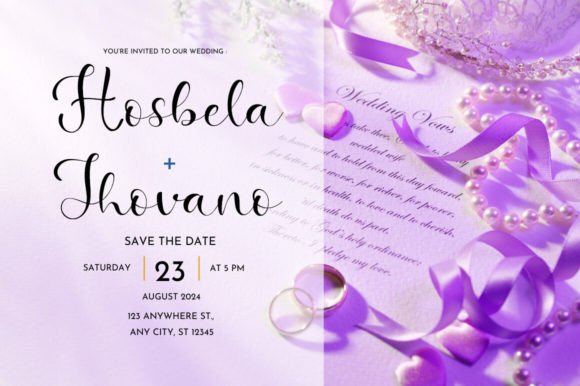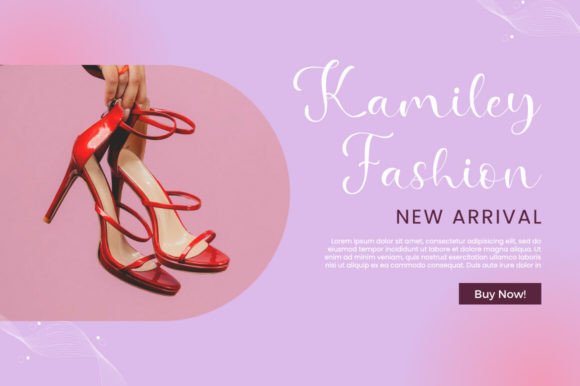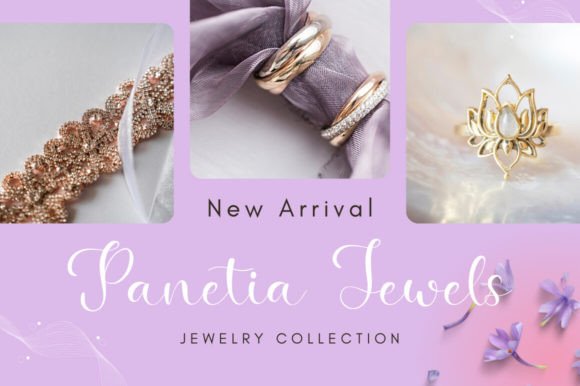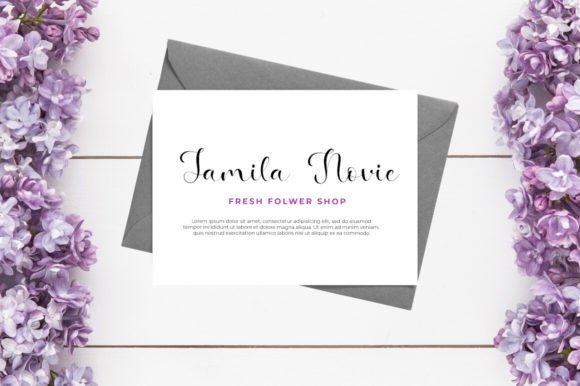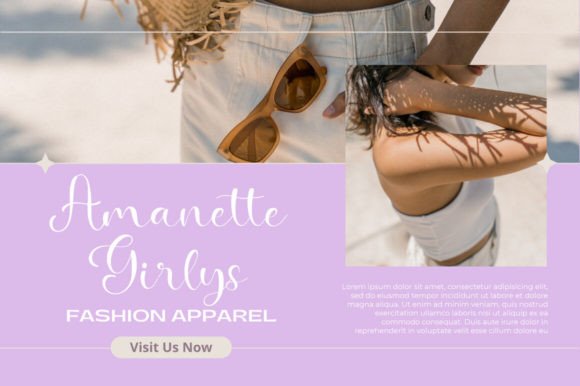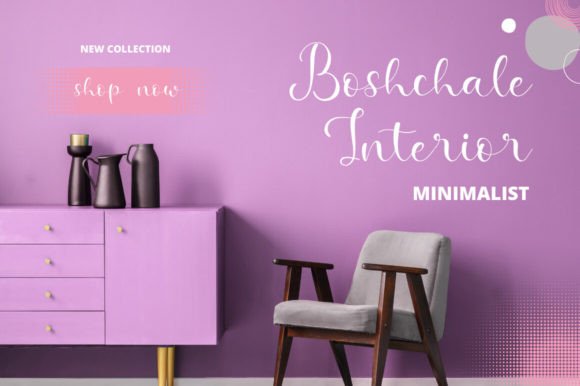
Introducing Bilateny Script: Elevate Your Designs with Elegance and Sophistication
In the world of design, typography plays a crucial role in conveying the message and aesthetic of a project. For those seeking a font that embodies elegance, class, and modernity, Bilateny Script is an exceptional choice. This stylish font is designed to add a personal touch to your art projects, making them stand out with its unique and sophisticated look.
What is Bilateny Script?
Bilateny Script is a beautiful script font that offers gorgeous typography, perfect for a wide range of projects. Its elegant and classy appearance makes it an ideal choice for designers and crafters looking to add a touch of sophistication to their work. Whether you’re creating logos, branding materials, invitations, stationery, wedding designs, social media posts, advertisements, product packaging, or labels, Bilateny Script is the perfect fit.
Key Features of Bilateny Script
• Elegant and Classy Look: Bilateny Script boasts a modern and sophisticated design that will elevate your projects to the next level.
• Versatile: This font is perfect for various projects, including logos, branding, invitations, stationery, wedding designs, social media posts, and more.
• Handwriting Taste: Bilateny Script offers a unique handwriting taste that will add a personal touch to your designs.
• Easy to Read: Despite its elegant look, Bilateny Script is easy to read, making it perfect for body text and headings.
Usage Ideas for Bilateny Script
Bilateny Script is a versatile font that can be used in a variety of projects, including:
• Logos and Branding: Create a lasting impression with a unique and elegant logo that reflects your brand’s personality.
• Invitations and Stationery: Add a touch of sophistication to your invitations, greeting cards, and stationery.
• Wedding Designs: Make your wedding designs, such as wedding invitations, programs, and place cards, truly special with Bilateny Script.
• Social Media Posts: Elevate your social media posts with a font that is both elegant and easy to read.
• Advertisements and Product Packaging: Use Bilateny Script to create eye-catching advertisements and product packaging that stands out.
• Labels and Photography: Add a personal touch to your labels and photography with a font that is both stylish and versatile.
• Watermarks and Special Events: Use Bilateny Script to create unique watermarks and special event materials, such as event invitations and programs.
Why Choose Bilateny Script?
In a world where design is everything, Bilateny Script offers a unique combination of elegance, class, and modernity. Here are some reasons why you should choose Bilateny Script for your next project:
• Unique Design: Bilateny Script boasts a unique design that will set your projects apart from the rest.
• High-Quality Typography: This font offers high-quality typography that is both elegant and easy to read.
• Versatility: Bilateny Script is perfect for a wide range of projects, making it a great addition to your font library.
In conclusion, Bilateny Script is a stylish font that offers elegance, class, and modernity to your designs. Its versatility, unique design, and high-quality typography make it perfect for a wide range of projects. Whether you’re a designer or crafter, Bilateny Script is a great addition to your font library. So why wait? Download Bilateny Script today and elevate your designs to the next level!